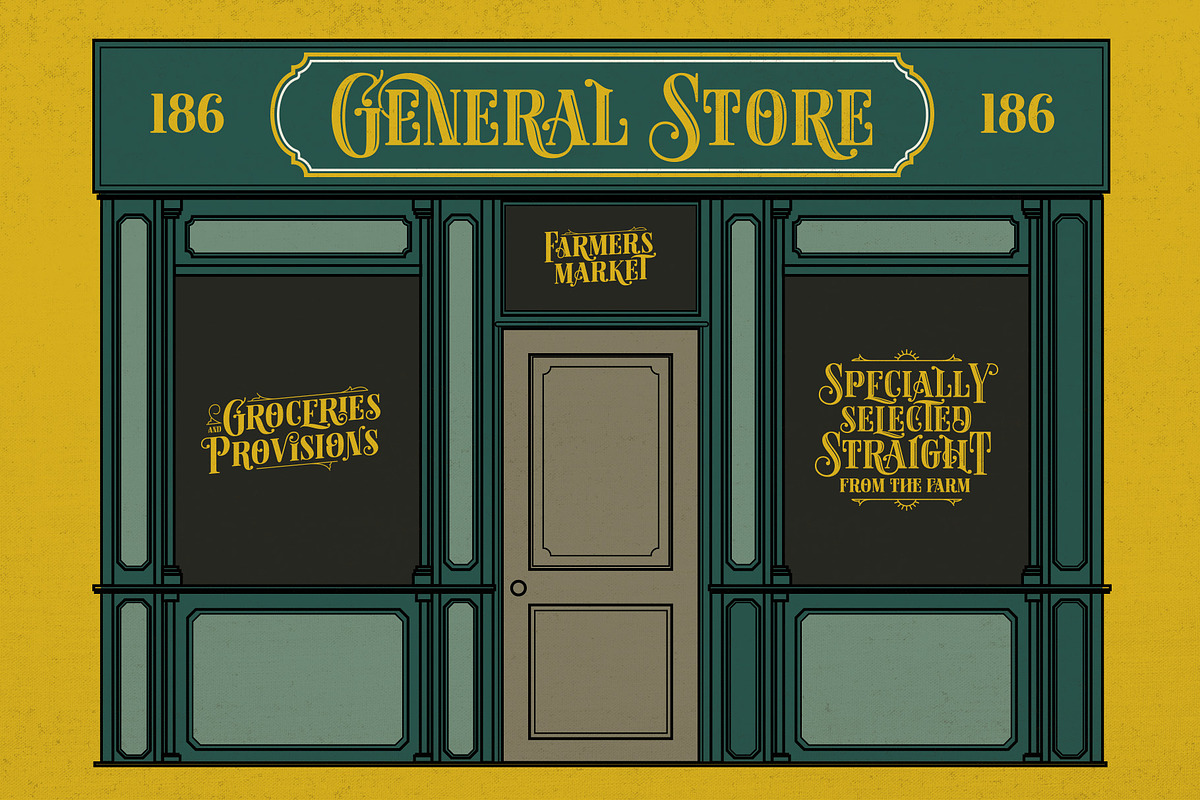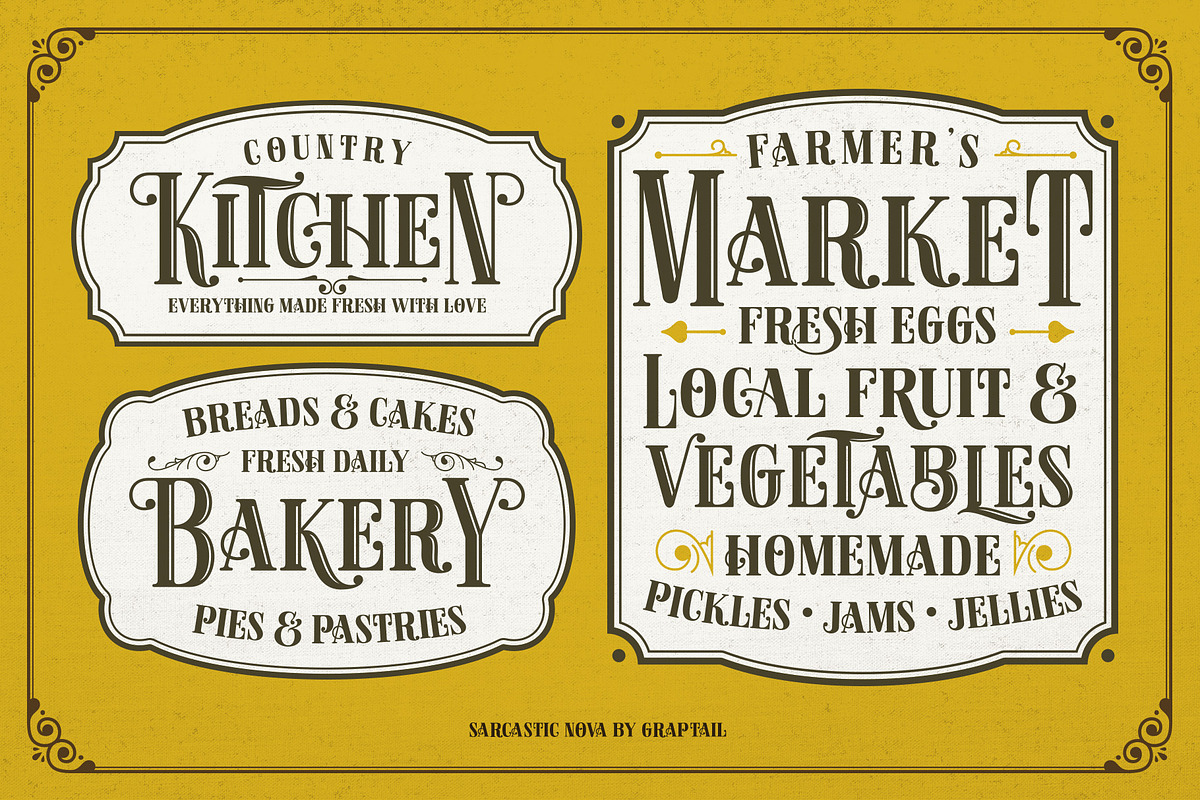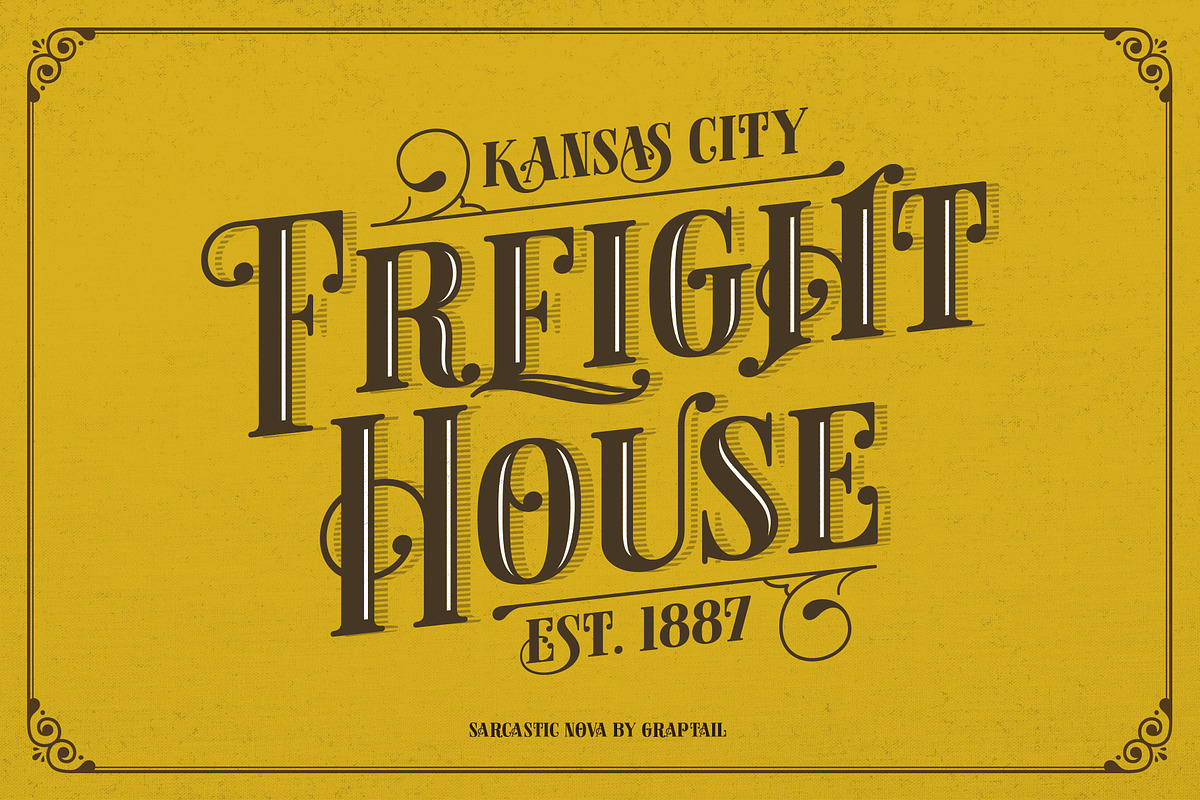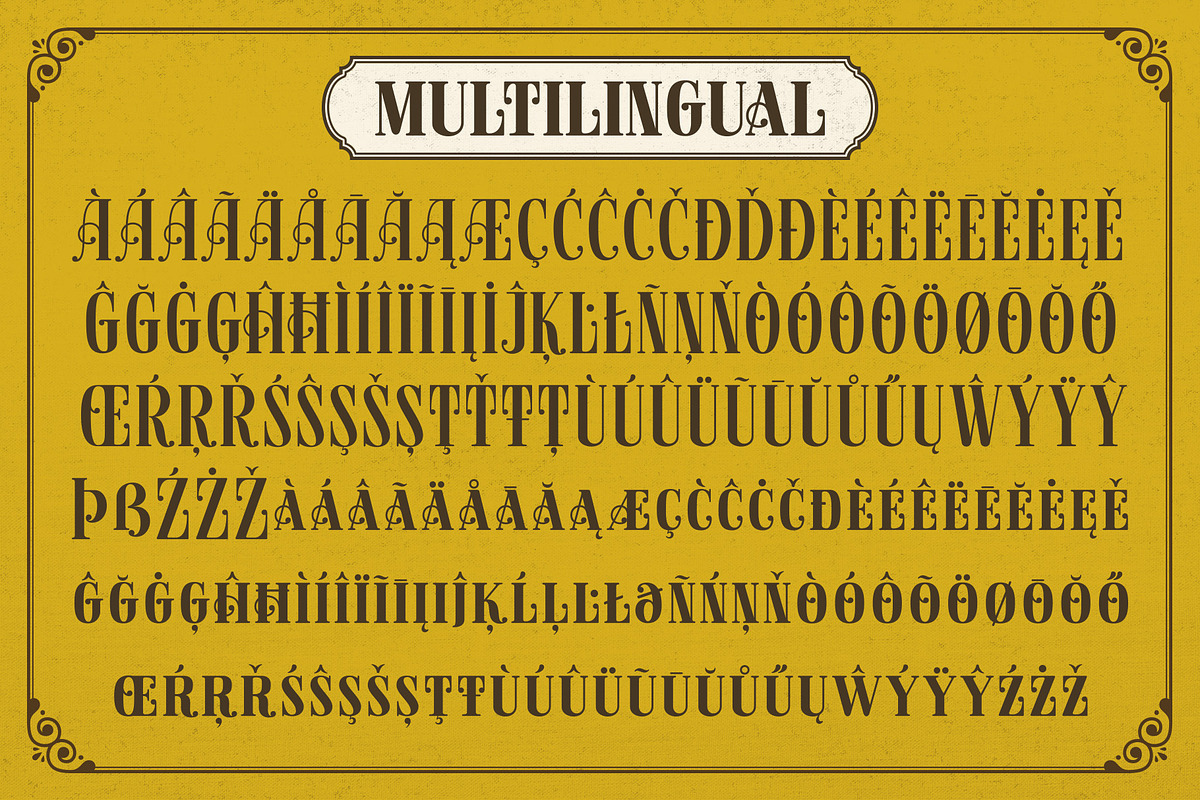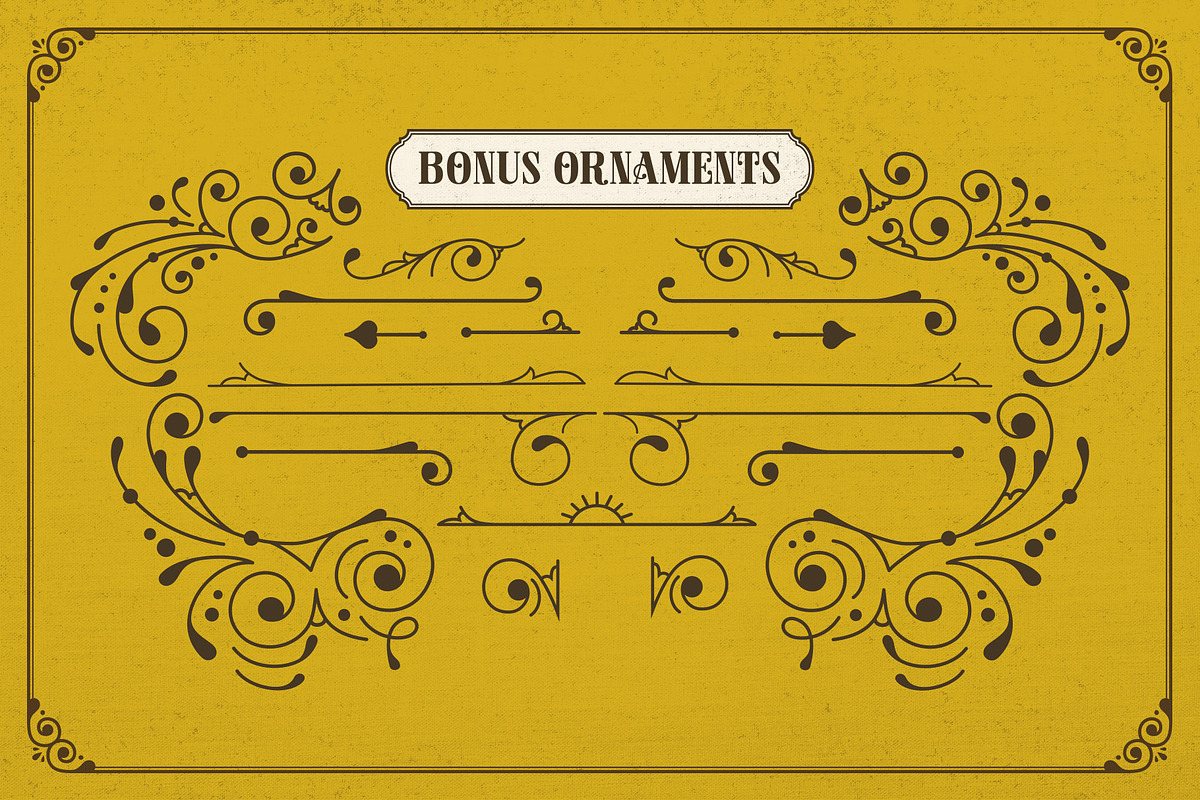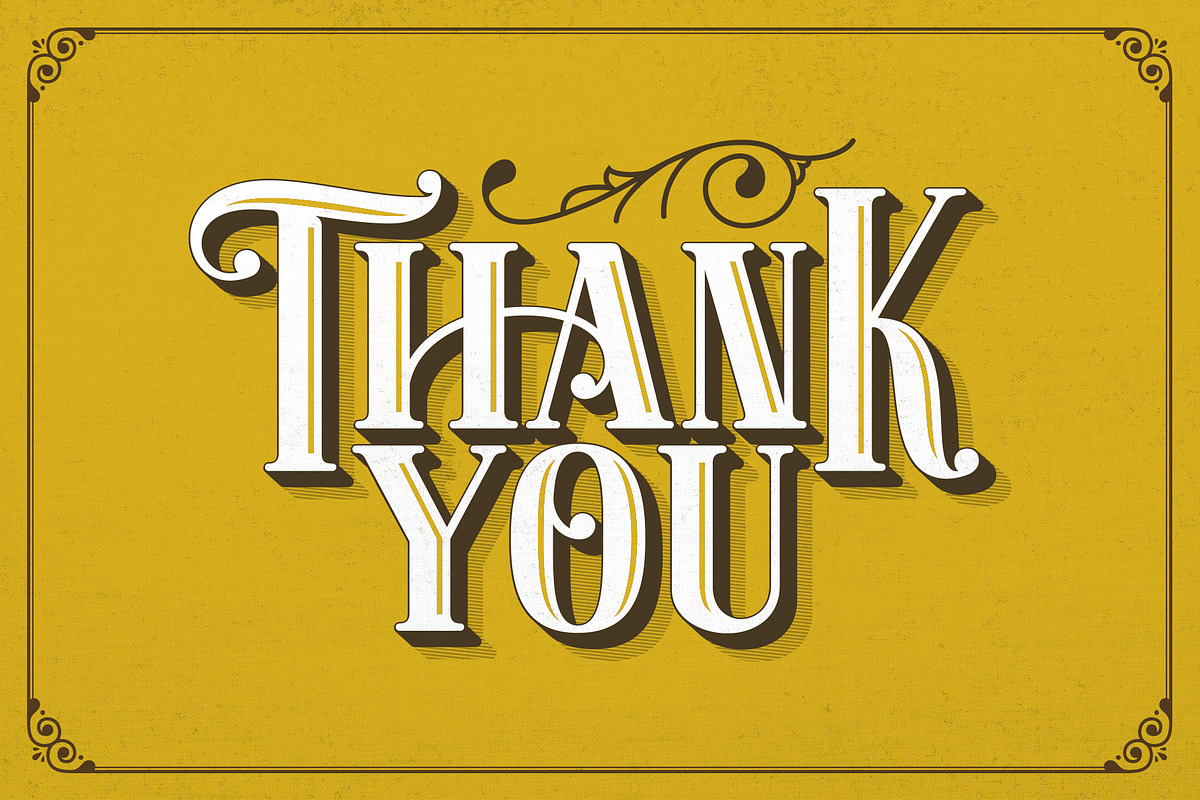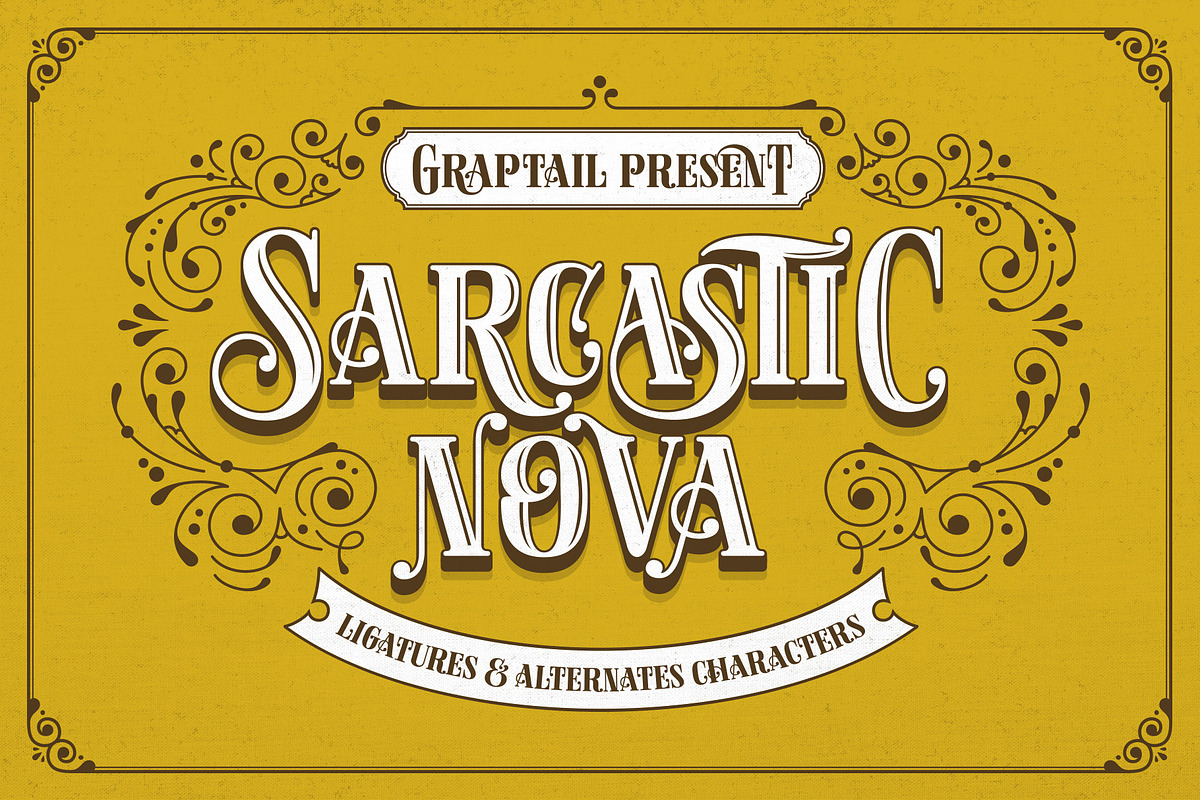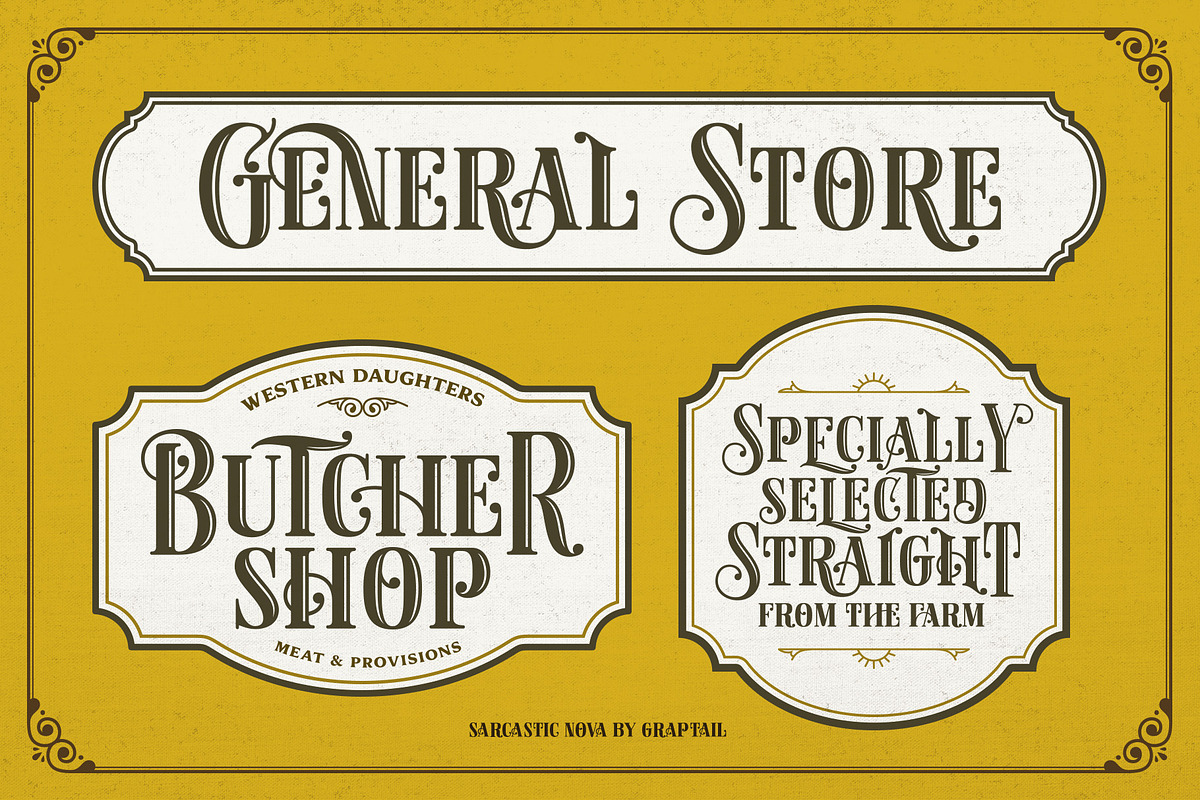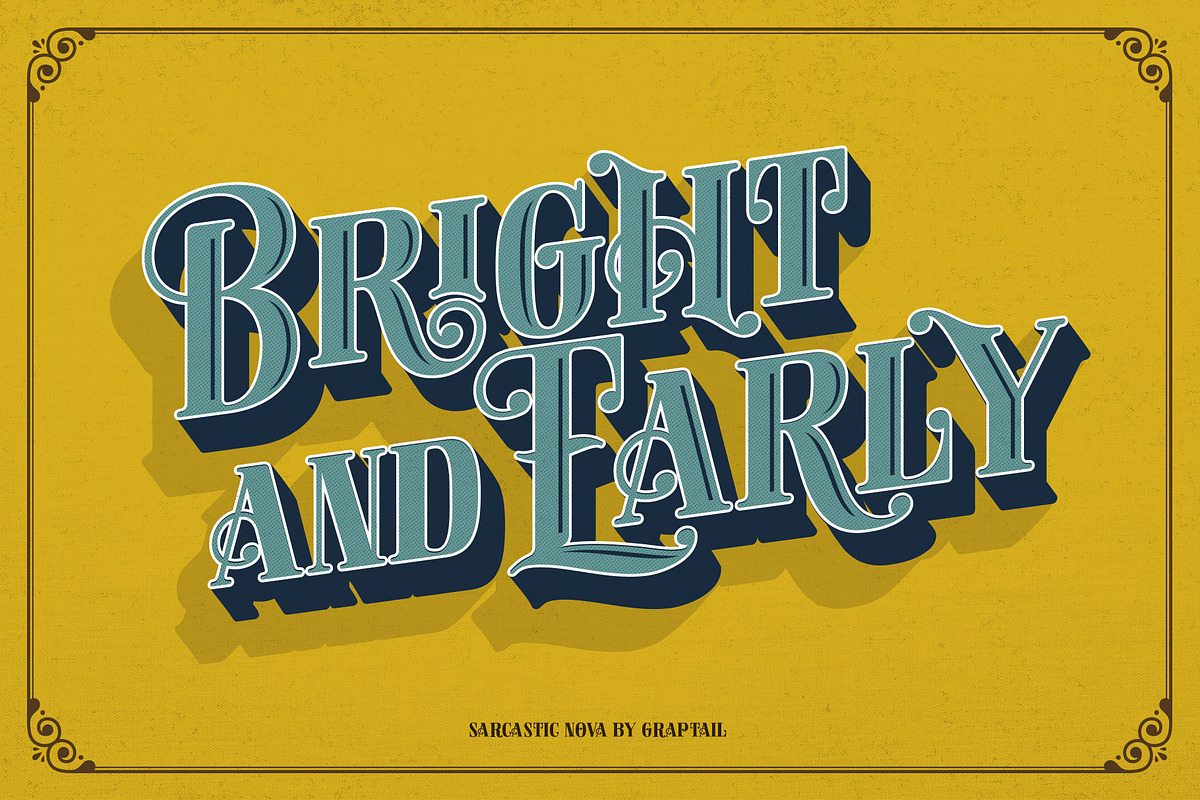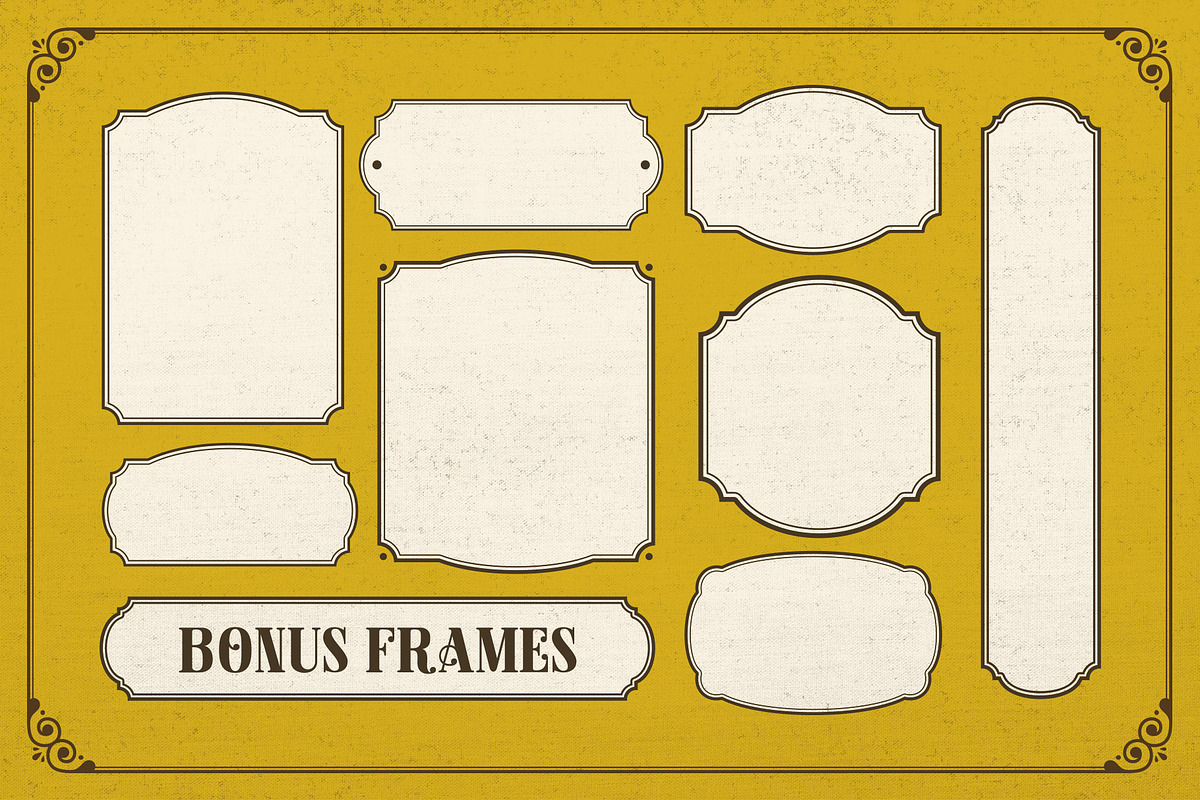
Sarcastic Nova
Sarcastic Nova is an updated version of the Sarcastic Font. This font is inspired by the classic shop sign. Sarcastic Nova comes with uppercase, lowercase, numerals, punctuations and so many variations on each characters include opentype alternates, common ligatures and also additional swash to let you customise your designs. Perfect to use for Logotype, Letterhead, Poster, Apparel Design, Label and etc. Also supported PUA encoded. Simply copy and paste the alternate characters using the Character Map (Windows), Font Book (Mac) or a software program such as PopChar (for Windows and Mac).
- All Alternates
- Discretionary Ligatures
- Oldstyle Figures
- Lining Figures
- Localized Forms
- Superscript
- Fractions
- Ordinals